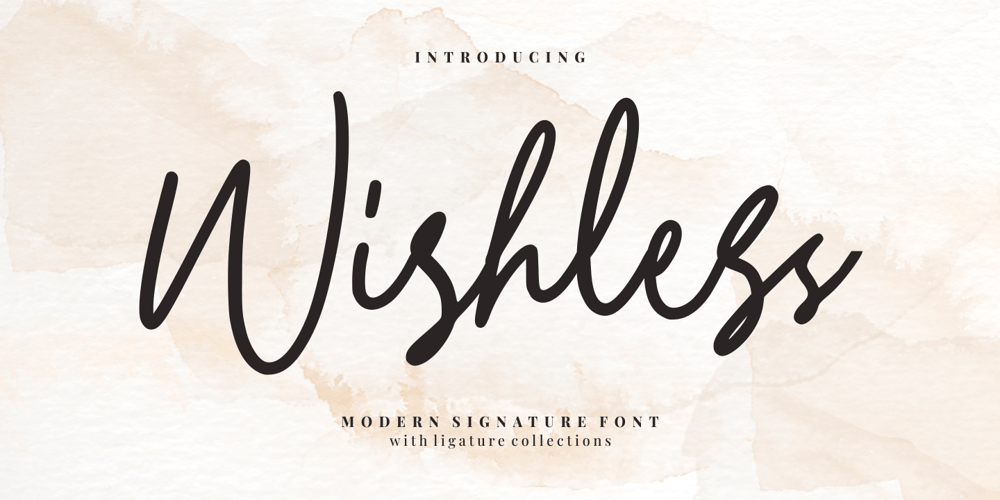
Wishless Font Family was designed by Good Java and published by Good Java Studio. Wishless contains 1 styles and family package options. Wishless – Modern Signature Font is a modern signature style. Perfect for logo, invitation, stationery, wedding designs, social media posts, advertisements, product packaging, product designs, label, photography, watermark, special events or anything. This font include : 30+ Ligatures, and also Multilingual support